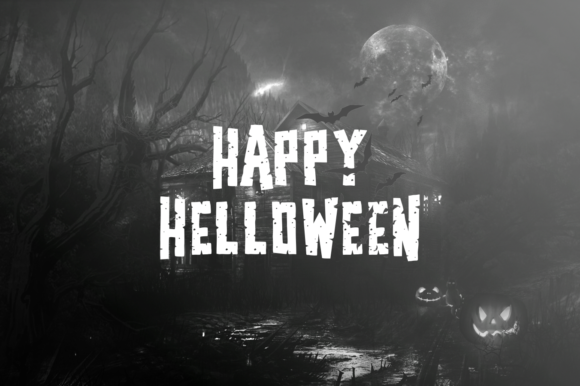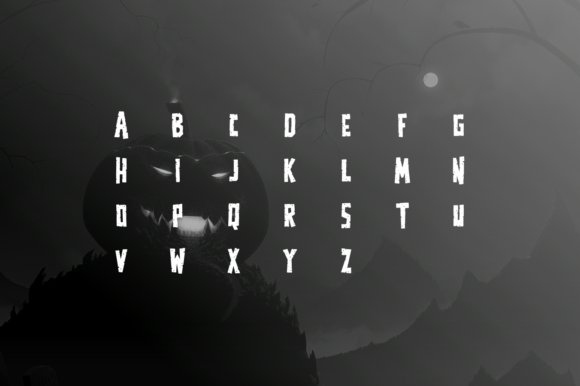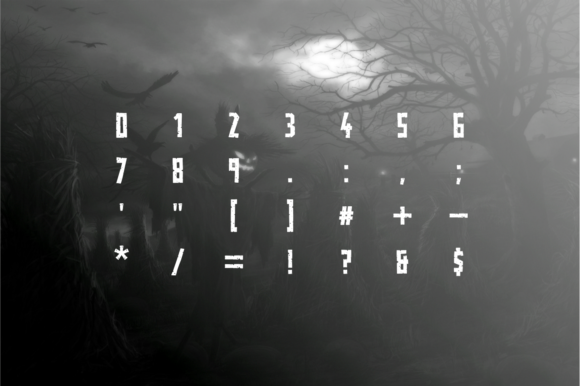
Introduction to Herogin Font
Herogin is a cool display font that takes you back to the old horror movies with spooky and vibrating effects.
It has a strong character for a variety of themes Grab it right away and pour your imagination with this font.
Key Features of Herogin Font
Why Choose Herogin Font?